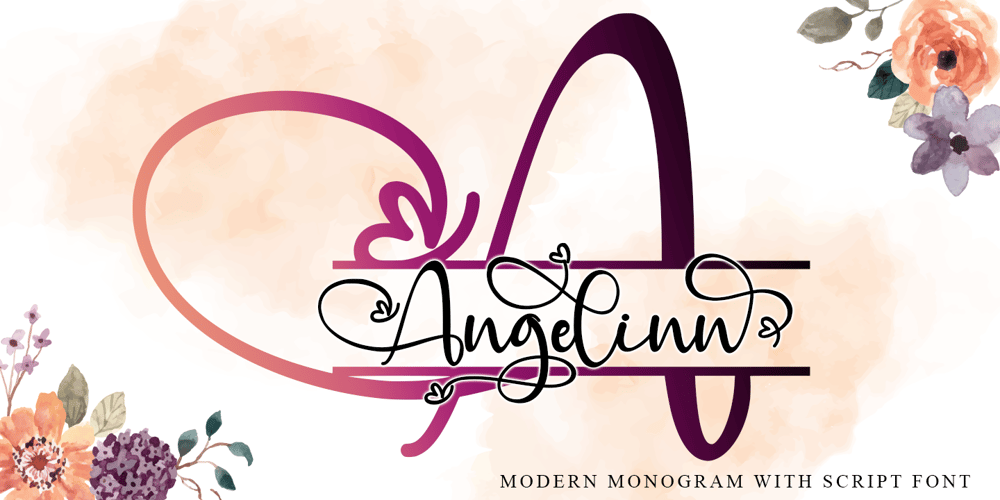
Angelynn Monogram Font Family was designed by Thomas Aradea and published by Letterara. Angelynn Monogram contains 8 styles and family package options. Angelynn Monogram is a beautiful Calligraphy script with a Monogram font designed with an incredibly modern feel. This font is PUA encoded which means you can access all of the glyphs and swashes with ease! It features a varying baseline, smooth lines, gorgeous glyphs, and stunning alternates.Use this gorgeous and unique Calligraphy font to bring any DIY project to life!